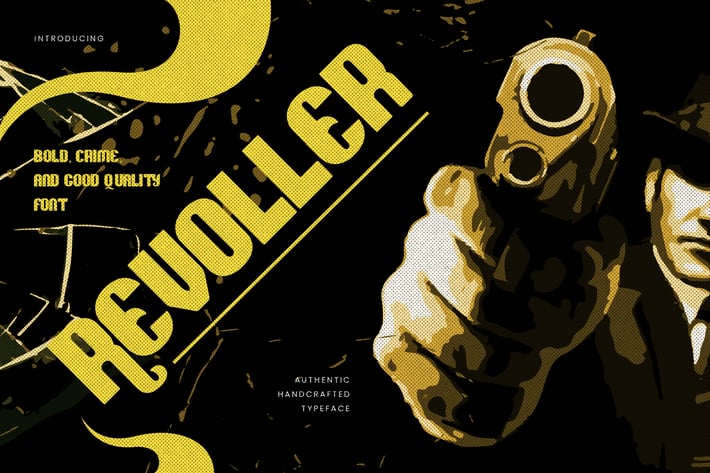
Revoller - Decorative Sans Font
naulicrea
Are you looking for a bold and elegant sans font? We can help! Try to download our Revoller font. The font is suitable to use for all purpose. Try to use it on Wedding invitation, summer occasion, greeting card, poster, postcard, photography, branding, editorial, event and fashion.
Basic Latin A-Z and a-z
Multilangual Support for ä ö ü Ä Ö Ü